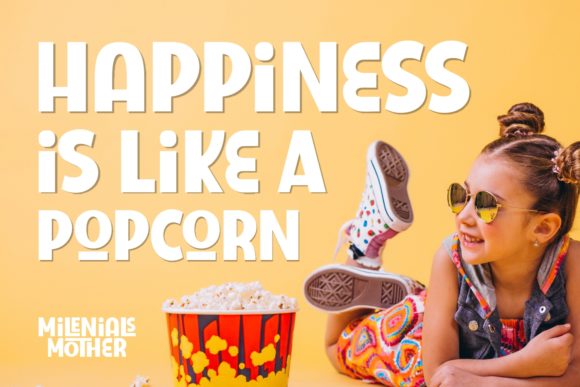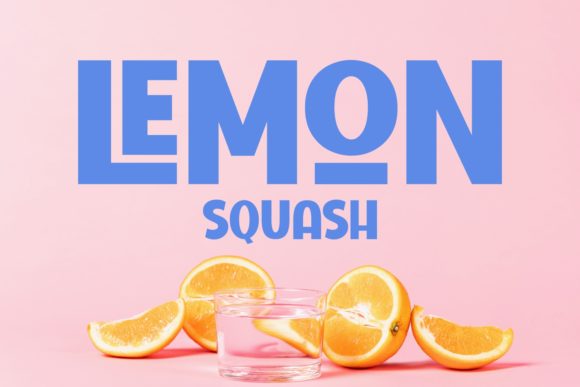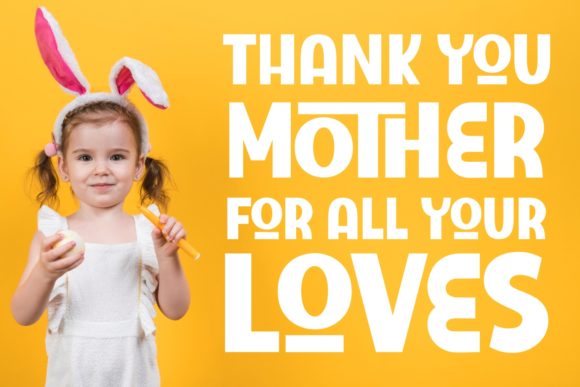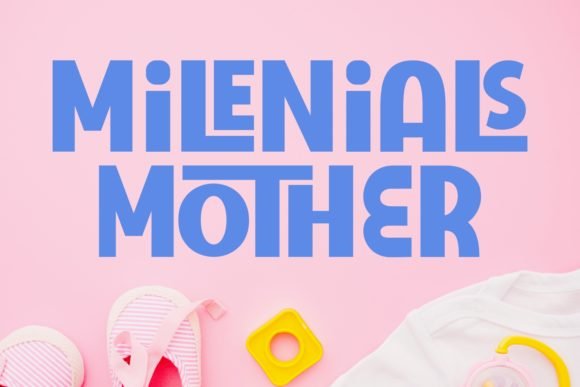
Introduction to Milenials Mother Font
Milenials Mother defies generations.
It’s a classic display font with an incredibly timeless appeal .
Key Features of Milenials Mother Font
Why Choose Milenials Mother Font?